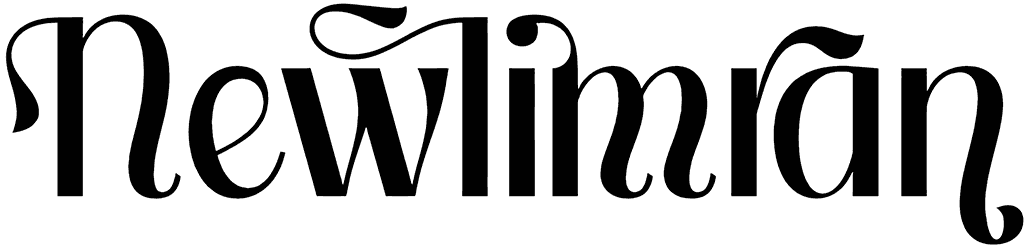
Newlimran Font
Never let your design lack a stylish touch when you can always bring tons of fanciness to your art with the gorgeous letters of Newlimran. You may already know a lot of logo fonts, but this one is not just trendy but also decorative.
So, you can also consider it a swash font, ideal for when you want to go out of your way to deliver tasteful branding designs for pieces of jewelry, items of clothing, accessories, candles, and more.